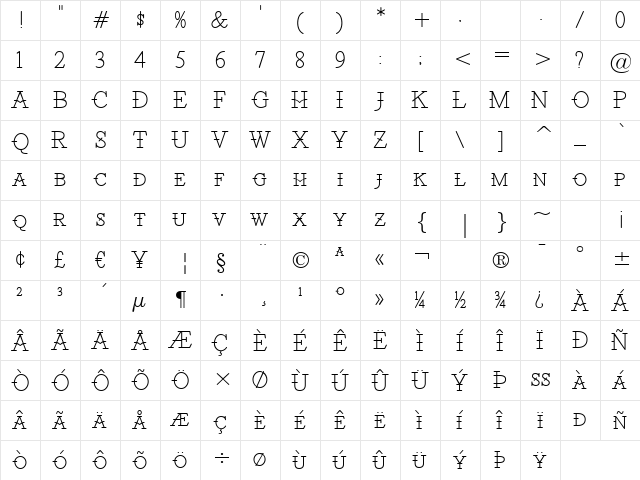
Santiago BTN Light Regular
Design Context for Santiago BTN Light Typeface
Santiago BTN Light offers clean, dependable letterforms without strong stylistic allegiance, making it a practical choice for designers who need flexibility. Its slender proportions lend an understated elegance to any composition.